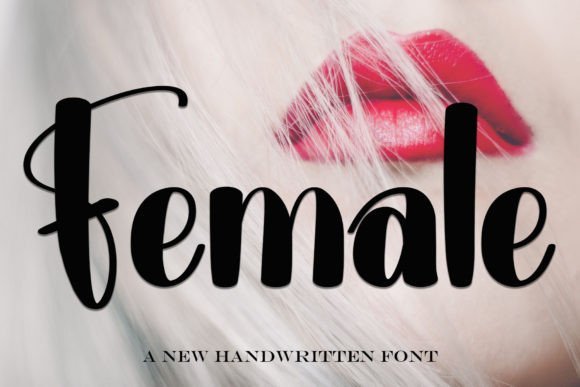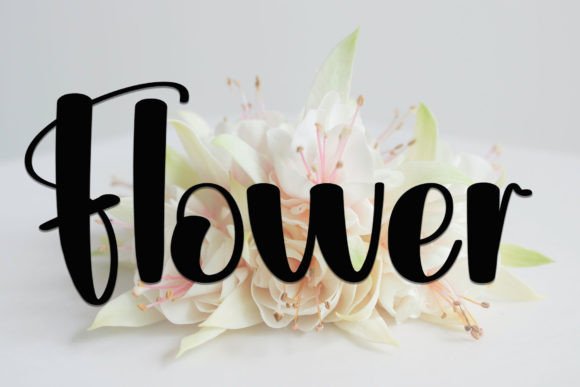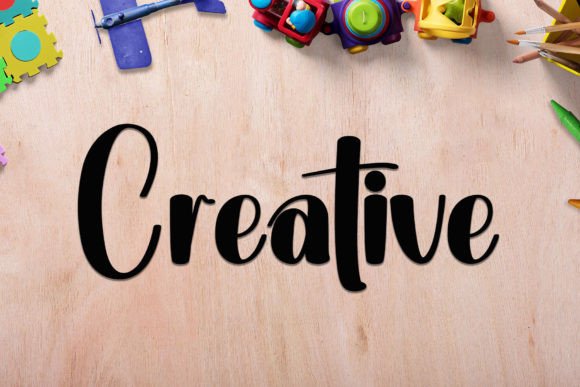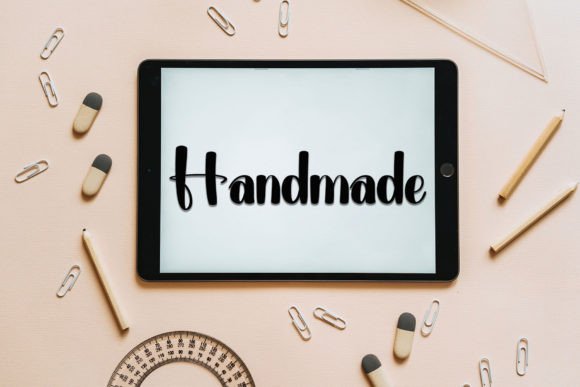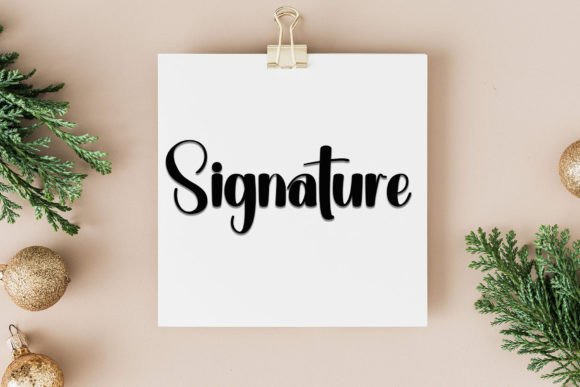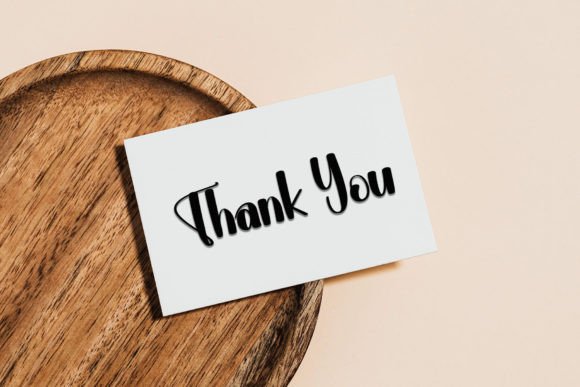
The Perfect Font for a Touch of Elegance
You’ve finally decided on the perfect venue for your best friend’s wedding, and now it’s time to start planning the invites. As you sit down to write the perfect message, you’re faced with a daunting task – how to convey your emotions and make it sound beautiful. This is where the right font can make all the difference.
Enter Female Font, a sweet and friendly handwritten font that’s perfect for adding a lovely touch to your designs. Fresh and casual, it’s ideal for writing wedding invitations, cards, or any other design that needs a little extra love. Whether you’re a seasoned designer or a DIY enthusiast, Female Font is a valuable addition to your toolkit.
Female Font Key Features
- Size: The font family includes 8 font weights, ranging from Thin to Extra Bold, providing flexibility for various design applications.
- Unique Characteristics: The font features a modern, elegant, and sophisticated design, with subtle curves and rounded edges, making it perfect for feminine and creative projects.
- Language Support: Female Font supports a wide range of languages, including Latin, Cyrillic, and Greek alphabets, making it suitable for global design applications.
- Kerning and Ligatures: The font includes advanced kerning and ligature pairs, ensuring smooth text flow and professional-looking typography.
Female Font Review
First impressions are everything, and the Female Font does not disappoint. Its elegant and refined design is perfect for creating a sophisticated and feminine aesthetic in any project. ✨ The font’s clean lines and rounded edges give it a touch of sophistication, making it ideal for luxury brands, fashion, and beauty industries.
Here are some of the features that I particularly like:
- ✨ Beautifully crafted, elegant and refined design
- ✨ Highly versatile, suitable for a wide range of applications
- ✨ Excellent legibility, making it easy to read even at small sizes
However, there are some limitations that I would like to point out:
- ⚠️ Limited character set, which may not be suitable for projects that require a wide range of special characters
- ⚠️ May not be as effective for projects that require a bold or dramatic feel
Overall, the Female Font is a great addition to any designer’s toolkit. While it may have some limitations, its elegant design and versatility make it a great choice for a wide range of projects. With a little creativity, you can use it to create stunning designs that will captivate your audience.
Tips for Getting the Most Out of Female Font
For a more feminine look, pair Female Font with pastel colors and floral patterns.
Use Female Font for headings and titles to add a touch of elegance to your design.
Female Font is ideal for:
- Baby shower invitations and decorations
- Feminine product packaging and branding